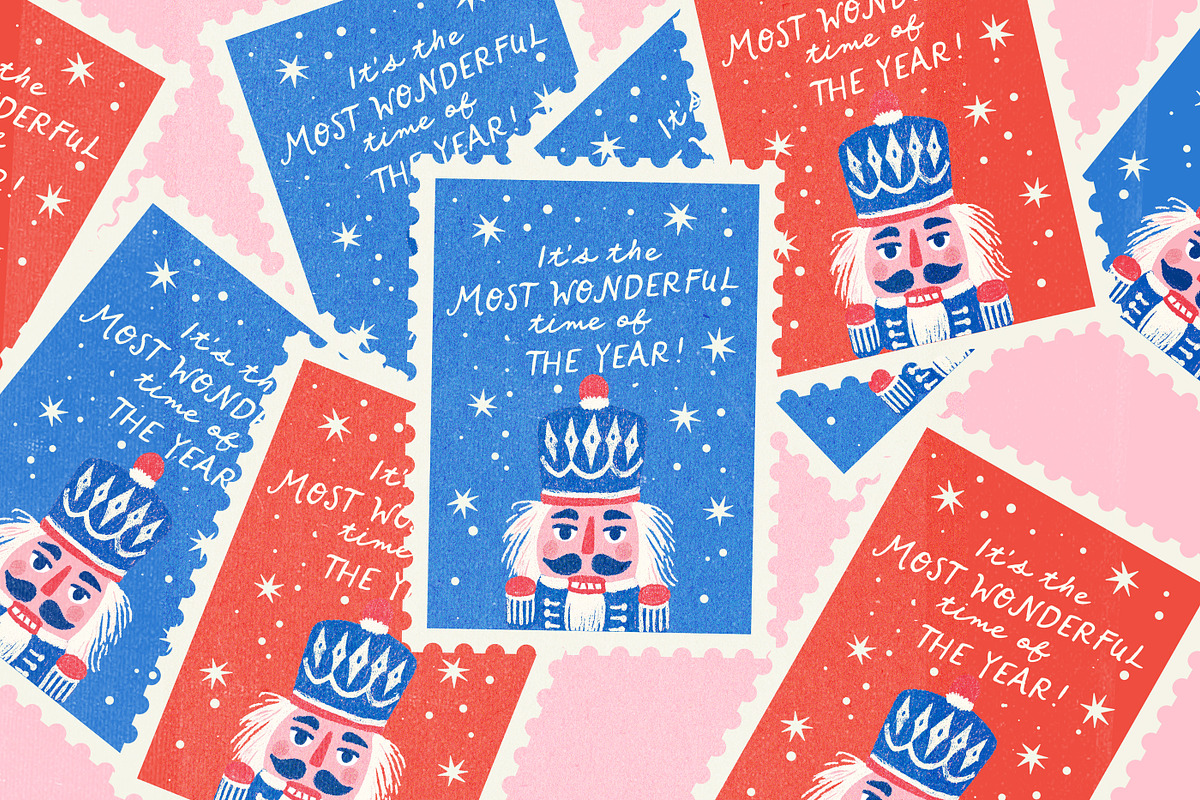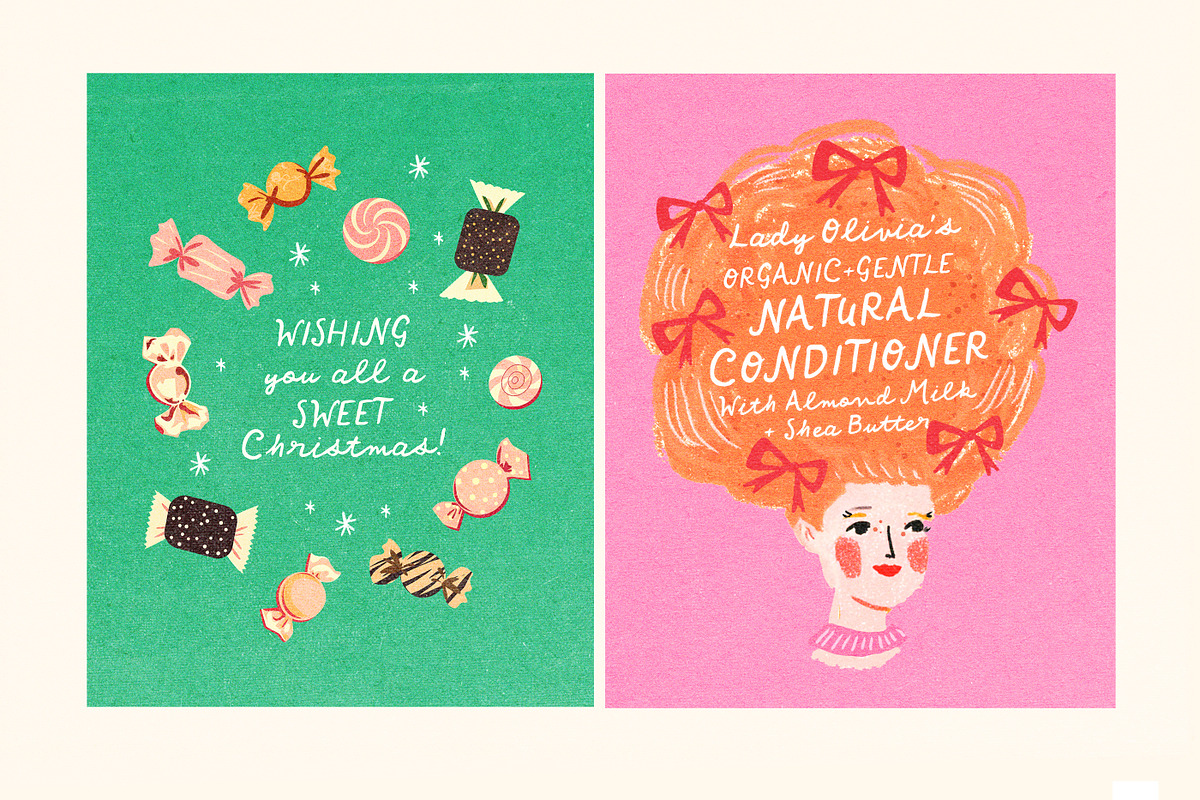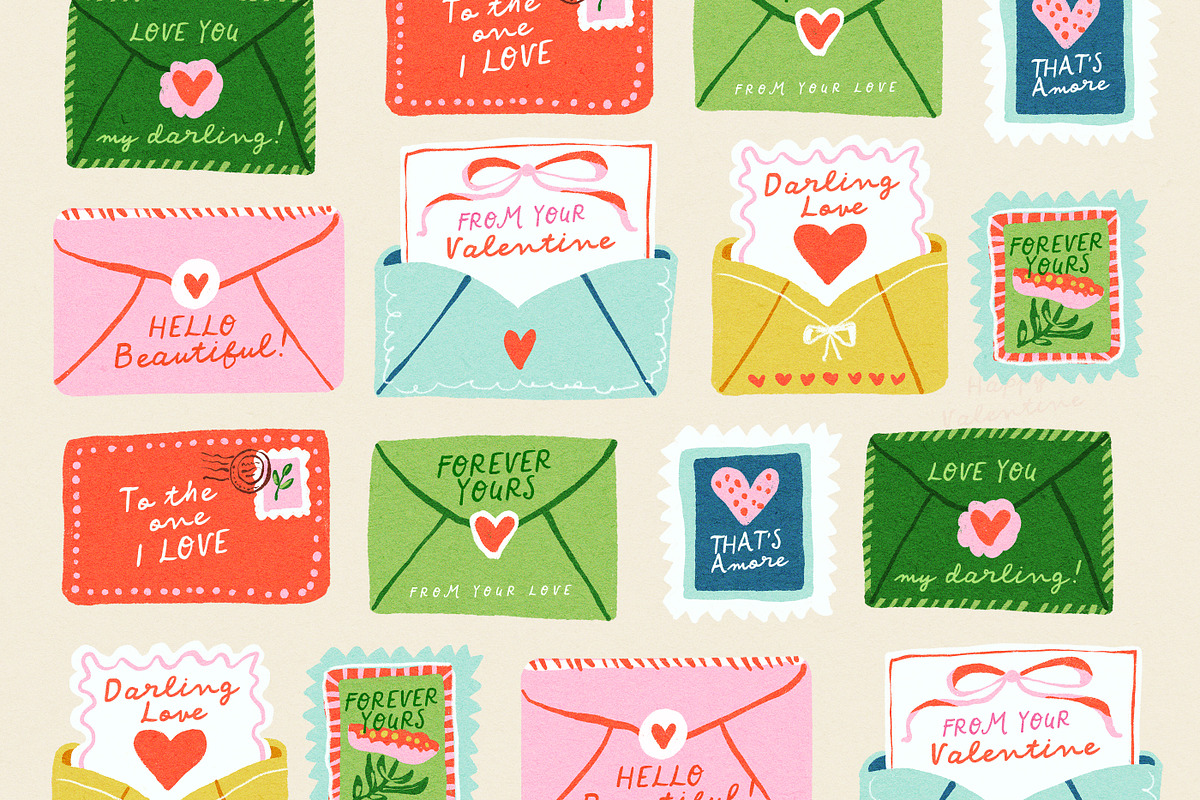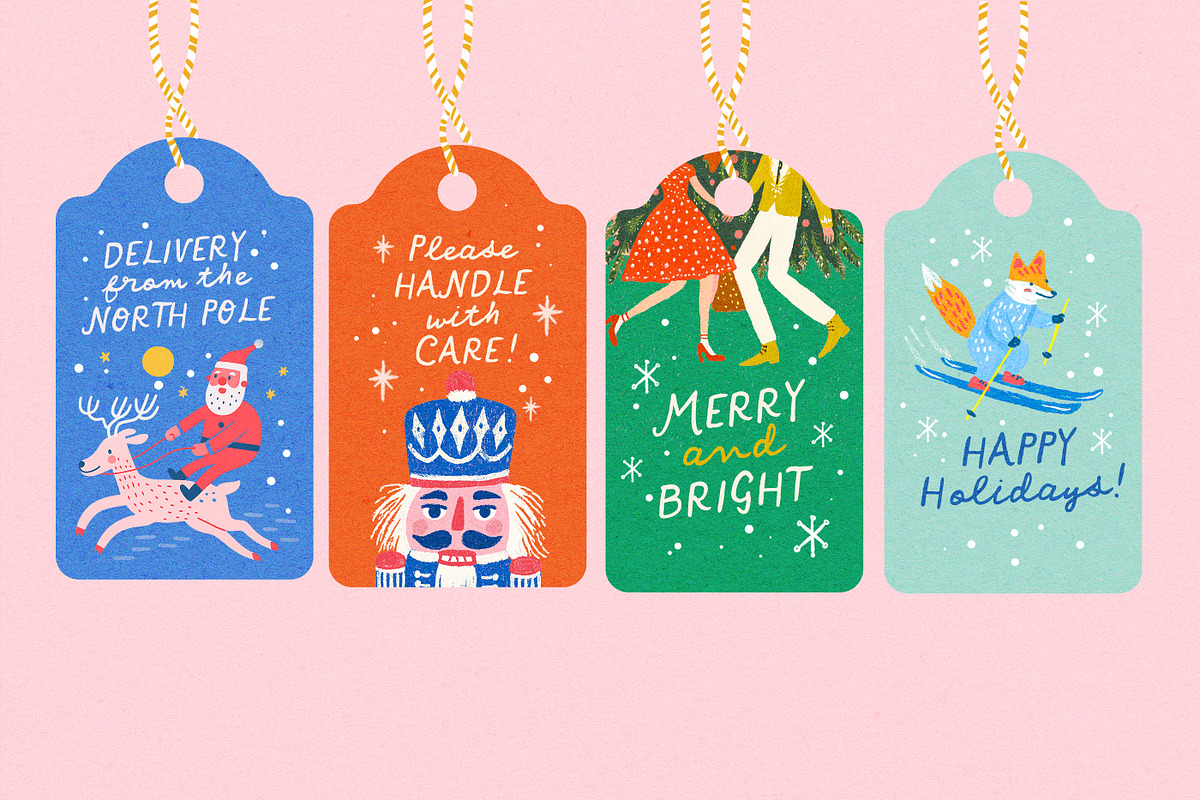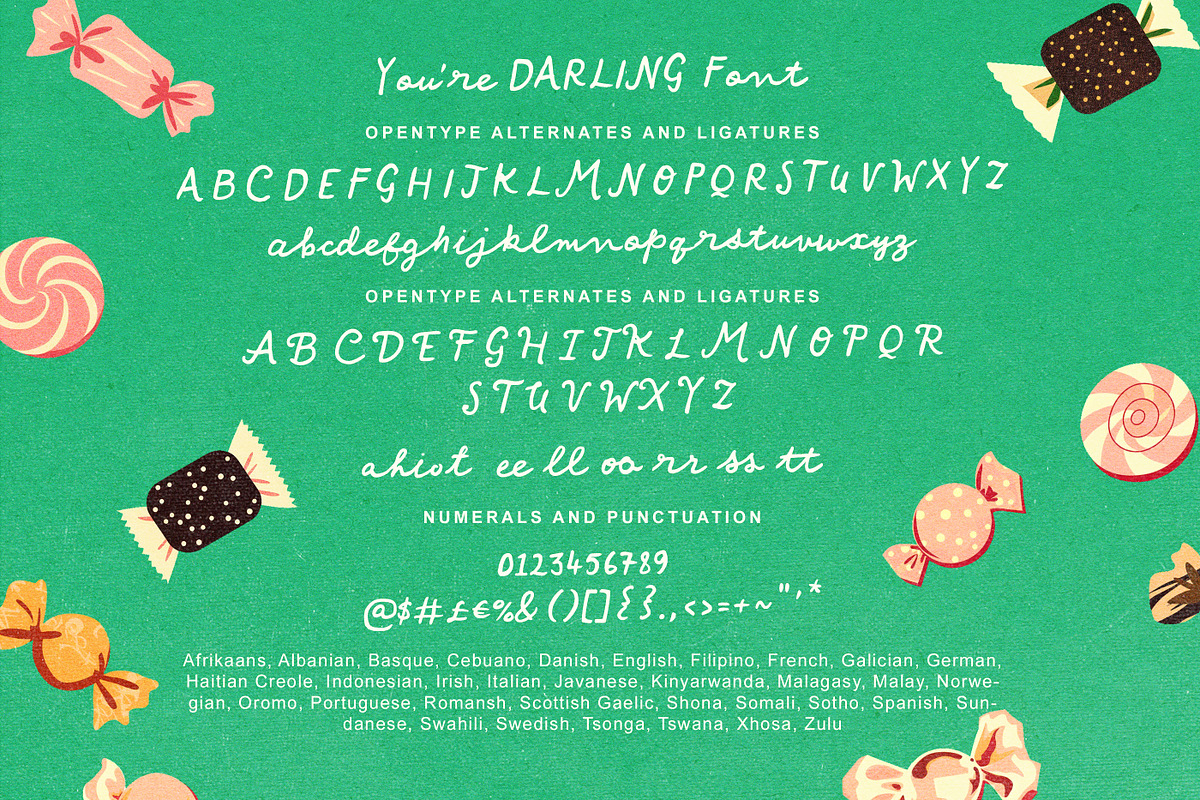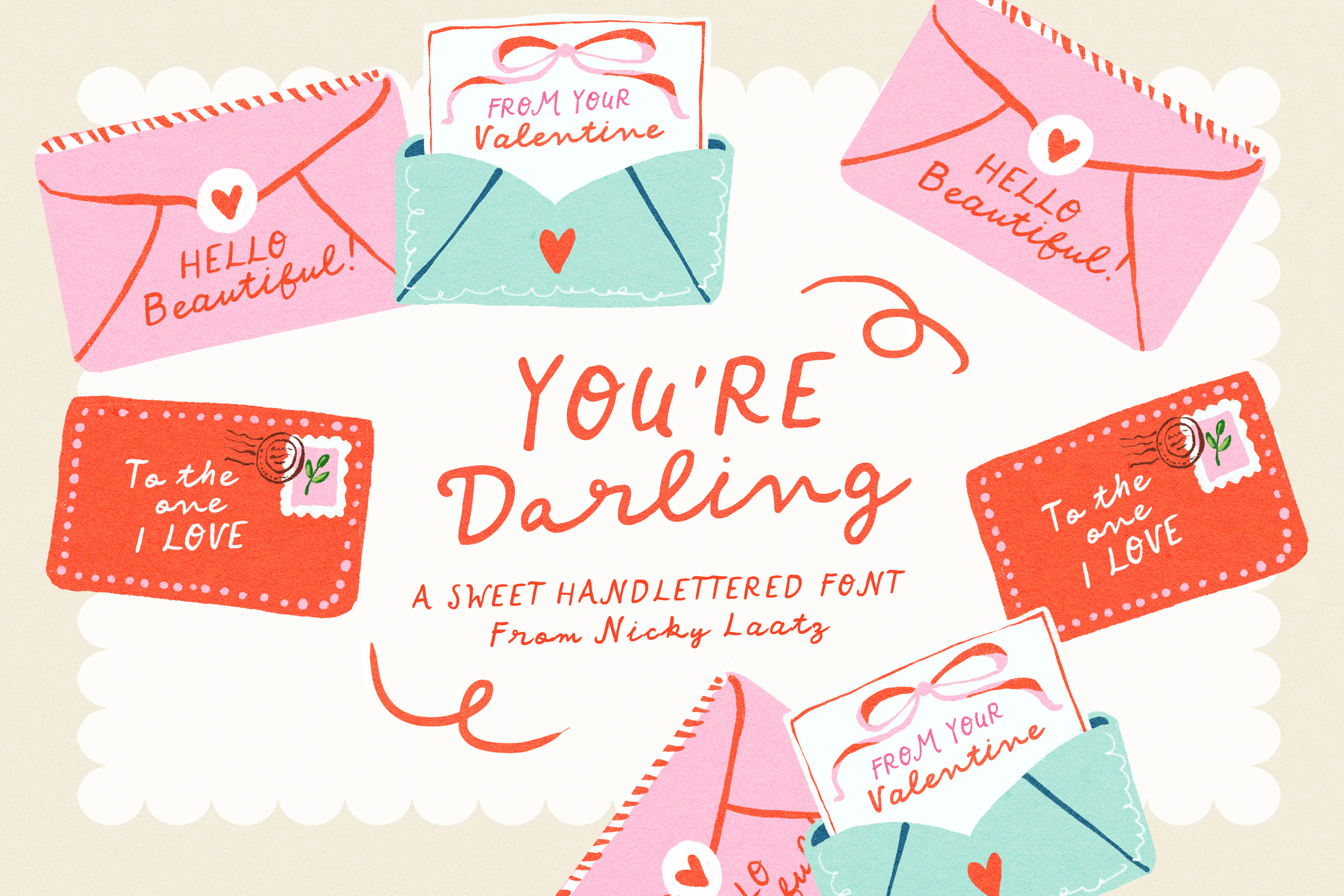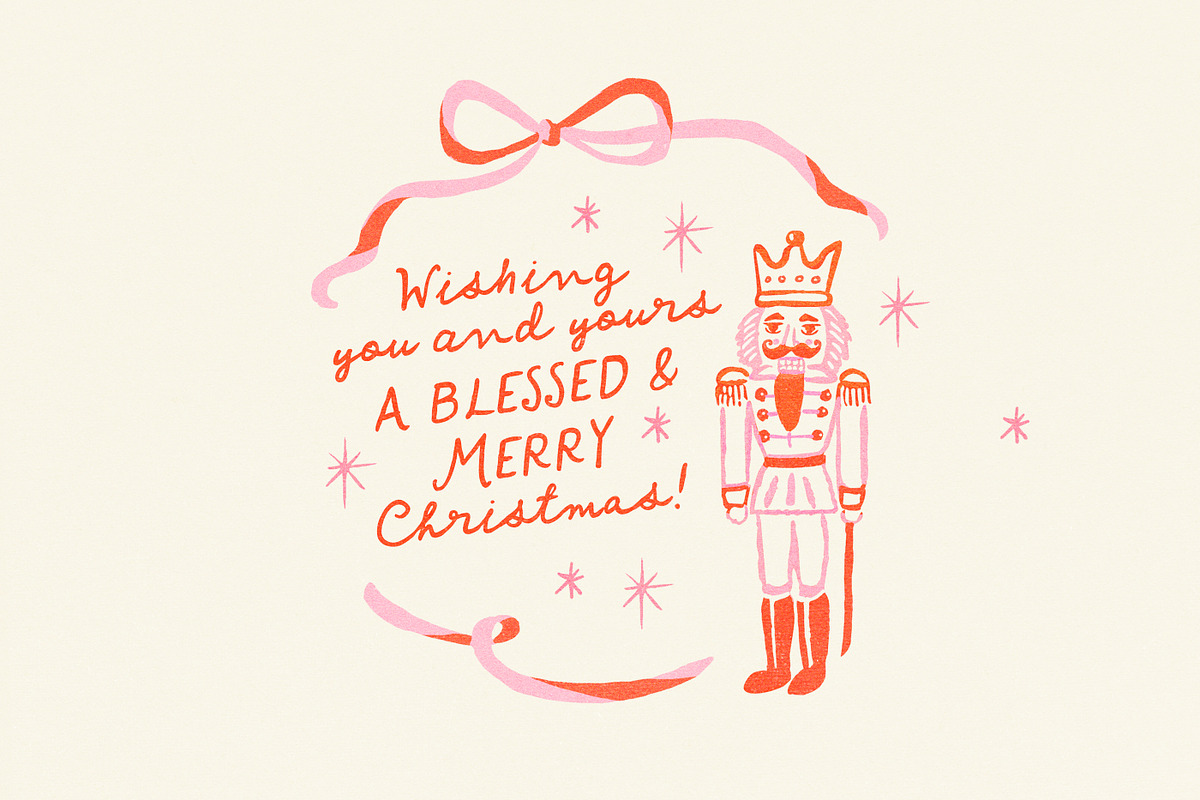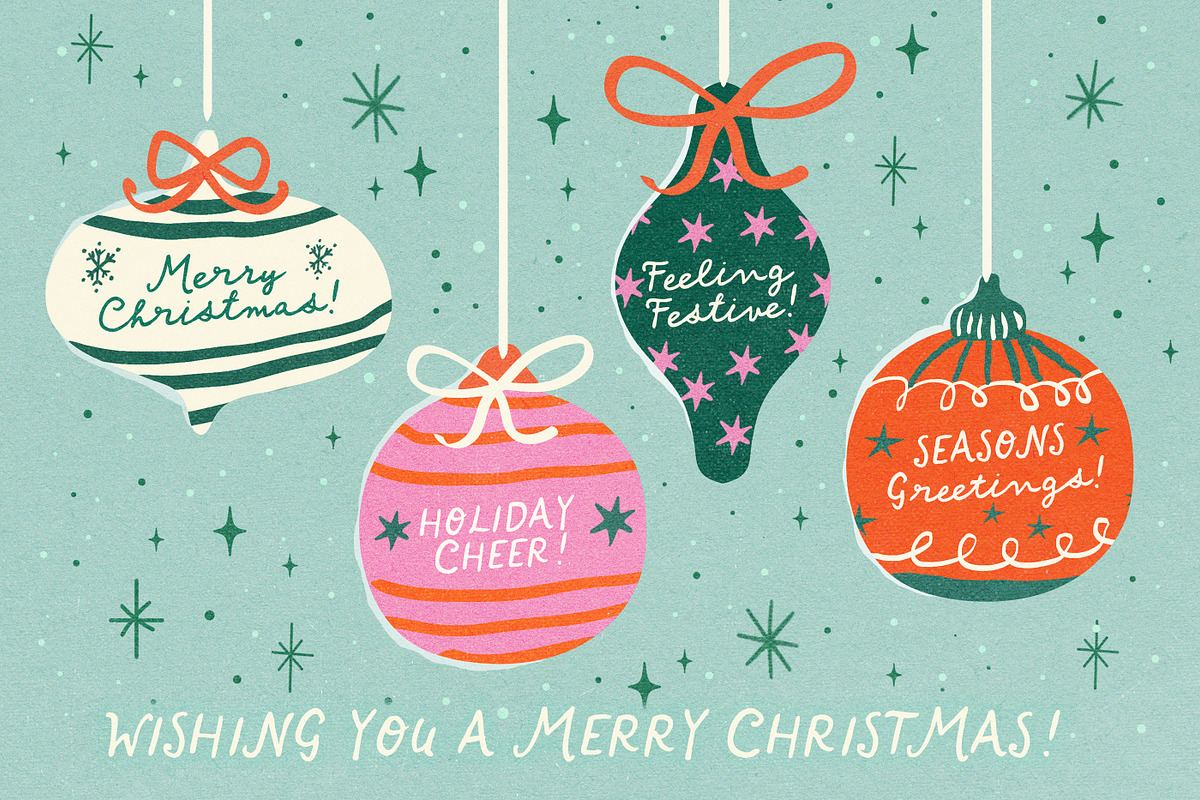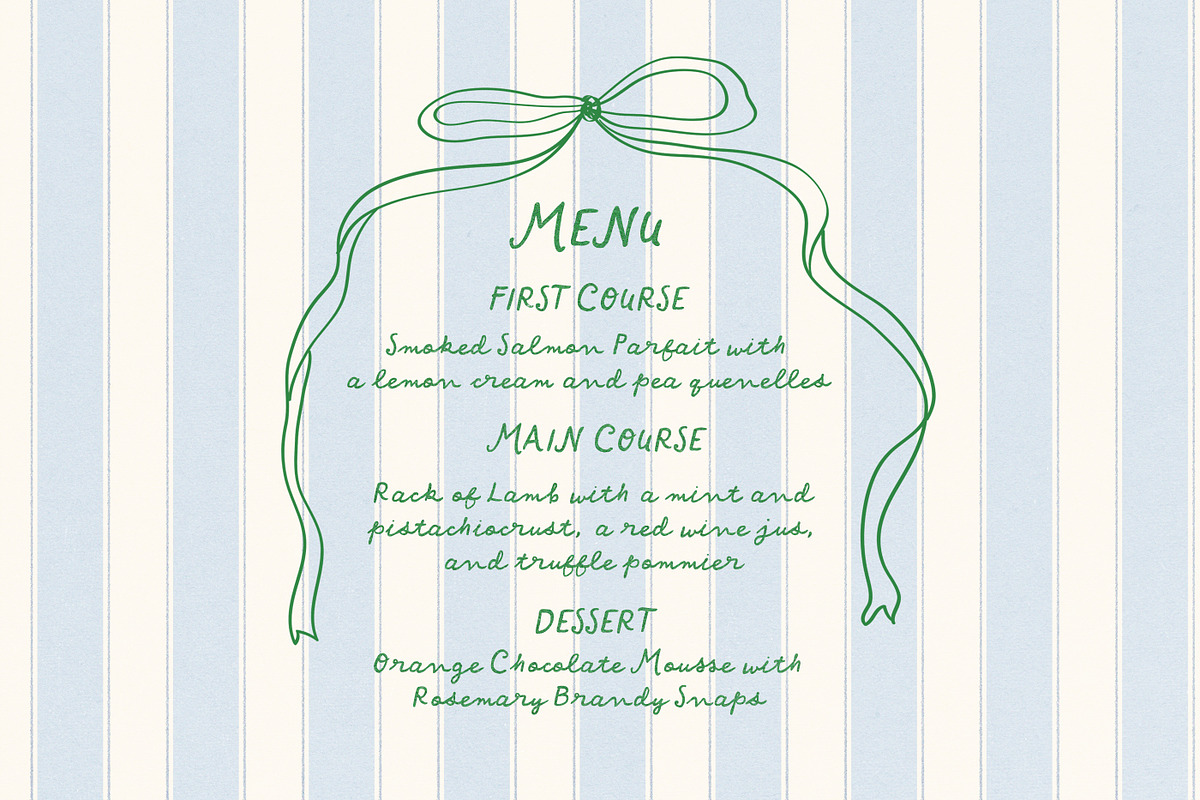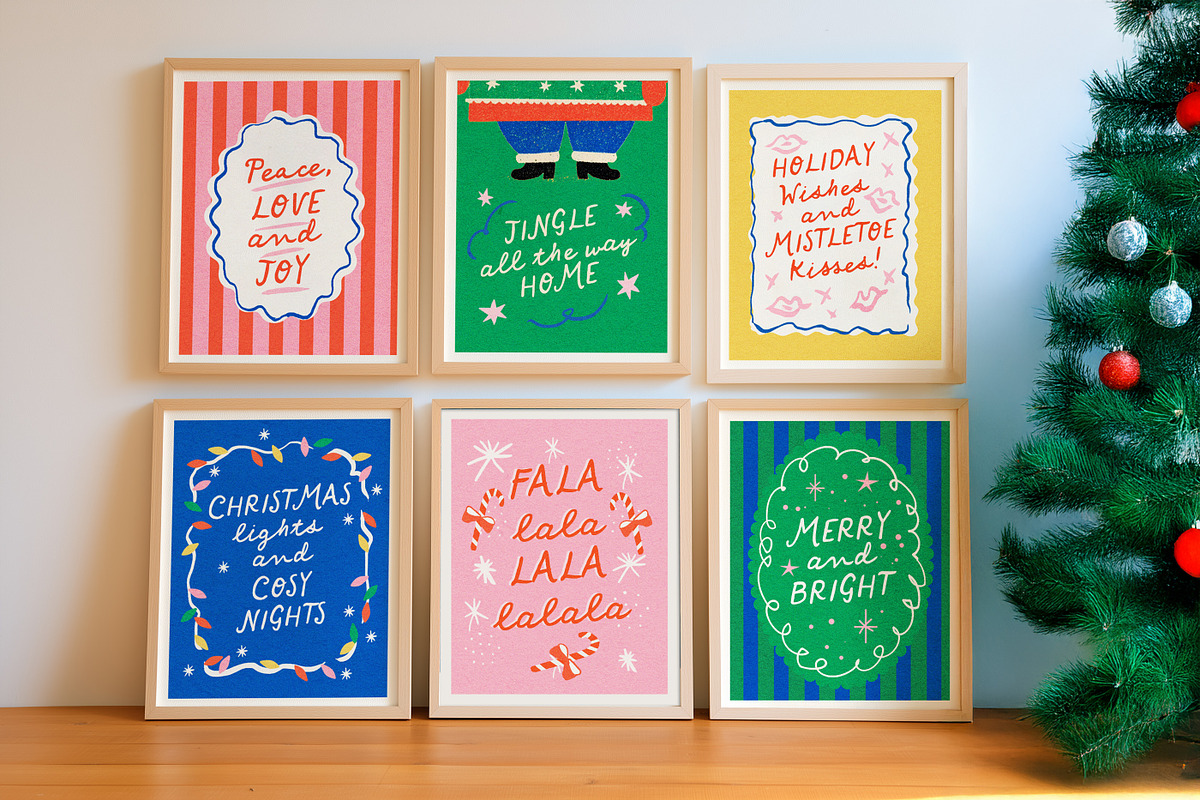
You're Darling Font
Say hello to 'You're Darling'! - Playful, warm and irresistably sweet, a penned script meant to bring spead a little extra love and joy!
With its charming imperfections and heart-tugging personality, You’re Darling instantly transforms even the simplest phrase into something that smiles back at you.
Designed especially to have an uppercase that can stand on its own - she's perfect for quotes, sayings, greetings and posters where a mix of a script and uppercase are needed in a jiffy:)
Perfect for so many types of projects - , playful wedding suites, cheerful gift tags, cute journals, quirky social posts, handwritten sweet love notes, and anything that needs a sprinkle of affection, You’re Darling doesn’t just decorate your message — it delivers it with a hug.
Don't forget to use her Opentype Alternates and Ligatures:) - to add a little extra nuance! You will find some fancier uppercase letters in her Opentype Extras, and double letter ligatures to make the type look more natural and flowing.
An alternate version of the font is included if you prefer to use just the fancier uppercase letters.